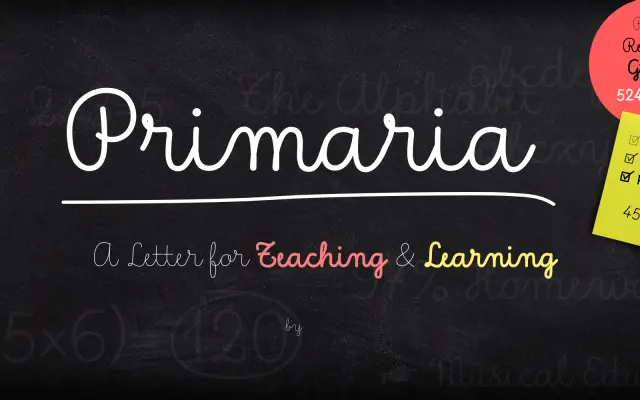
Primaria
A primary-school handwriting revival offered in both cursive and print styles across three weights, with OpenType alternates to improve letter connections.
Drawn from the basic cursive and print letterforms taught in early education, Primaria comes in six variants split across two subfamilies: a Cursive Pack and a Print Pack, each in Fina, Regular and Gruesa. OpenType features include standard and discretionary ligatures, three stylistic sets and ordinals to smooth awkward letter pairs. Best suited to children's products, educational materials, food and drink packaging and soft goods branding.
Primaria is classified as display due to its playful, teaching-inspired character; it draws directly from primary school handwriting instruction, offered in both cursive and print styles.